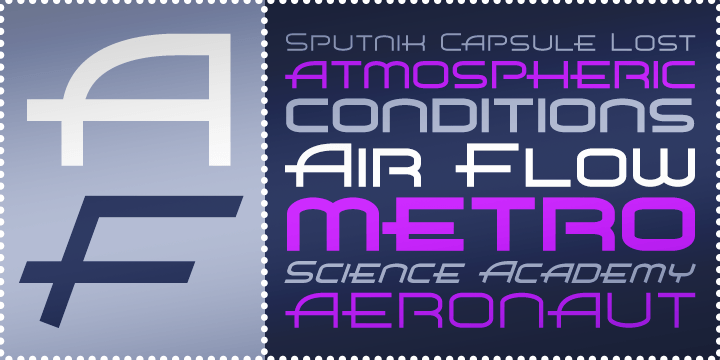
Air Flow BTN
Air Flow BTN is a clean futuristic type family built to convey speed, innovation, and modern technology. Its streamlined construction and aerodynamic styling give it a sleek, forward-looking voice that works especially well for display use. Ideal for technology branding, sci-fi themes, automotive graphics, sports design, packaging, advertising, and digital media, Air Flow BTN balances a mechanical edge with strong readability. With a range of upright and oblique styles from Light through Heavy, the family offers flexibility for everything from sharp minimal headlines to bold, high-impact titles.